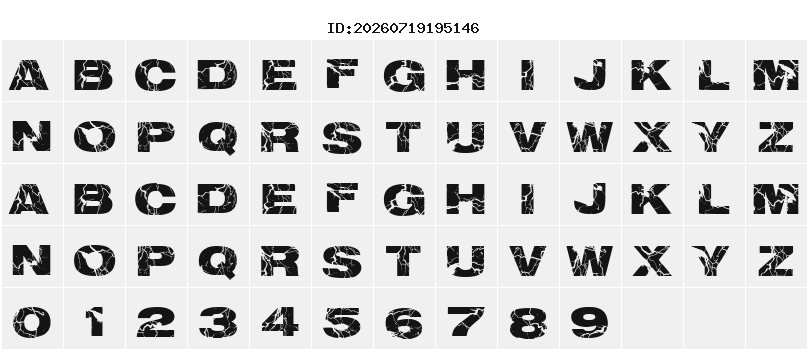
electrical Preview
• Font Name: electrical
• Full Font Name: electrical
• Version: Version 1.00 March 4, 2012, initial release
• Designer: max infeld
• Description: plug it in and it is electrical
About electrical.ttf
electrical.ttf is a modern, elegant sans-serif font designed for ultimate readability and visual harmony. Perfect for branding, headlines, web design, and print materials.